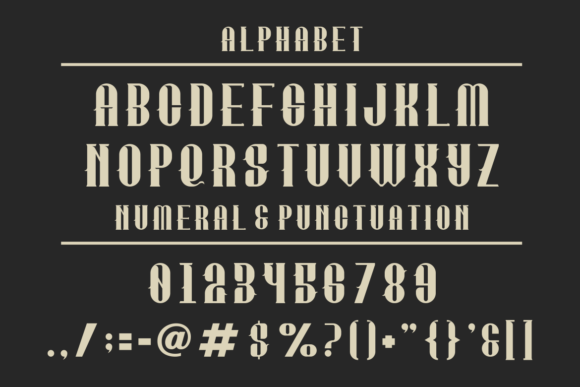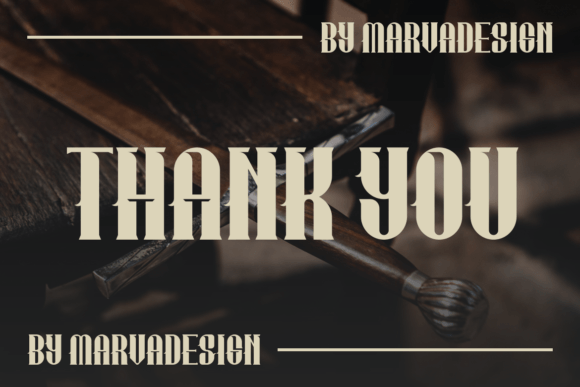
Discover the Charm of Diggery Font: A Unique Vintage-Style Display Font
Are you tired of using the same old fonts in your design projects? Look no further than Diggery Font, a cool and interesting display font that’s sure to add a touch of elegance and sophistication to your work. With its unique, vintage-style look, Diggery is suitable for a wide range of project ideas, from branding and advertising to packaging and crafting.
What is Diggery Font?
Diggery Font is a display font that’s inspired by the classic typography of the past. Its unique design features a distinctive, hand-crafted look that’s reminiscent of vintage signs, posters, and advertisements. The font is characterized by its bold, chunky letters, intricate details, and a charming, nostalgic feel that’s sure to capture the attention of your audience.
Key Features of Diggery Font
So, what makes Diggery Font so special? Here are some of its key features:
- Unique vintage-style design: Diggery Font boasts a one-of-a-kind design that’s inspired by the typography of the past. Its bold, chunky letters and intricate details make it a standout font that’s sure to add a touch of elegance to your designs.
- High-quality and versatile: Whether you’re working on a branding project, creating a poster, or designing a craft project, Diggery Font is a versatile font that can be used in a wide range of applications.
- Easy to read: Despite its bold and chunky design, Diggery Font is surprisingly easy to read, making it perfect for headlines, titles, and other display text.
Uses for Diggery Font
So, what can you use Diggery Font for? The possibilities are endless! Here are some ideas to get you started:
- Branding and advertising: Use Diggery Font to create eye-catching logos, posters, and advertisements that will grab the attention of your target audience.
- Packaging design: Add a touch of elegance to your product packaging with Diggery Font. It’s perfect for labels, tags, and other packaging materials.
- Crafting and DIY projects: Diggery Font is a great choice for crafters and DIY enthusiasts who want to add a personal touch to their projects. Use it to create custom signs, banners, and other decorative items.
- Graphic design: Use Diggery Font to create stunning graphic designs, including brochures, flyers, and social media graphics.
Tips for Using Diggery Font
Here are some tips for getting the most out of Diggery Font:
- Use it sparingly: Diggery Font is a bold and chunky font, so use it sparingly to avoid overwhelming your design. Use it for headlines and titles, and pair it with a simpler font for body text.
- Experiment with colors and textures: Diggery Font looks great in a range of colors and textures. Experiment with different combinations to find the one that works best for your design.
- Pair it with other fonts: Diggery Font pairs well with a range of other fonts, including sans-serif fonts, script fonts, and serif fonts. Experiment with different combinations to find the one that works best for your design.
In conclusion, Diggery Font is a unique and versatile display font that’s perfect for designers and crafters who want to add a touch of elegance and sophistication to their work. With its bold, chunky design and vintage-style look, Diggery Font is sure to capture the attention of your audience and leave a lasting impression. So why not give it a try and see what amazing designs you can create?